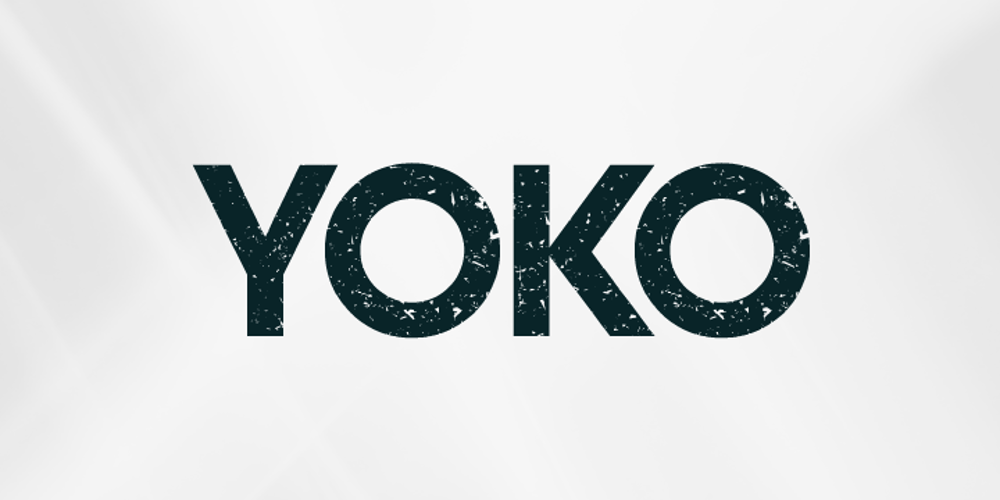
Yoko
Yoko font
Yoko Font Family was designed by Alex Haigh and published by HyperFluro. Yoko contains 1 styles and family package options. Yoko is a straightforward font with a straightforward message, and an interesting finish. Yoko wants you to enjoy life, live to your fullest and be happy. Yoko understands that it doesn’t look easy, but it can be, and you can achieve it. Straight lines and perfect corners make Yoko’s messages come across simply and openly. There’s no fancy flourishes in what you say with this font, just a goal and a solution. That’s not to say it’s dull though, because the textured finish gives Yoko a depth that carries its own form of weight. The solid impact of the shapes and the rough texture of the finish make Yoko’s message stand out, whatever you choose to say with it.